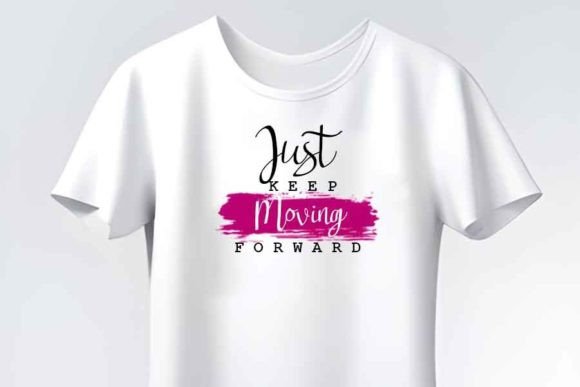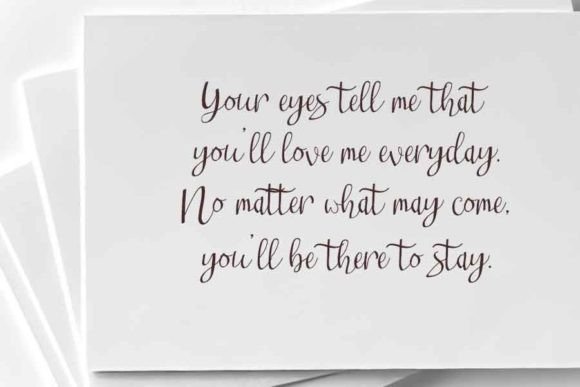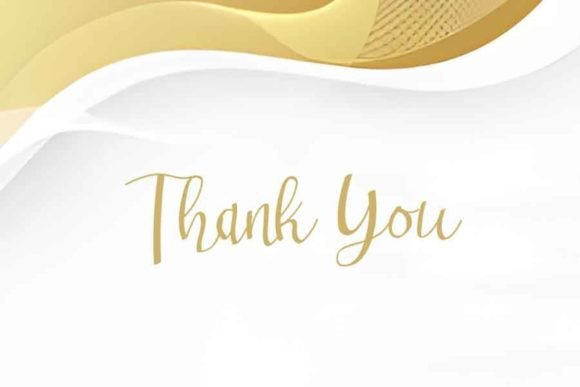
Introducing Alpenice Font: Elevate Your Designs with a Touch of Retro Elegance
Are you on the hunt for a font that adds a dash of sophistication and whimsy to your designs? Look no further than Alpenice, a stunning handwritten font that is sure to capture the hearts of designers and crafters alike. With its delicate strokes and retro flair, Alpenice is the perfect choice for creating eye-catching logos, branding materials, and quotes that demand attention.
The Beauty of Alpenice
Alpenice is more than just a font – it’s an experience. Its beautiful, hand-crafted letters are infused with a sense of nostalgia and charm, evoking memories of a bygone era. The font’s delicate lines and subtle curves give it a distinctly feminine touch, making it ideal for designs that require a touch of elegance and sophistication.
Features of Alpenice
• Retro Style: Alpenice boasts a distinctly retro aesthetic that will transport your designs back in time. Its vintage charm is perfect for creating designs that are both nostalgic and timeless.
• Handwritten with Love: Each letter in Alpenice has been carefully crafted by hand, giving the font a unique and personal touch that sets it apart from more generic fonts.
• Elegant and Refined: Alpenice’s delicate strokes and subtle curves make it the perfect choice for designs that require a touch of sophistication and refinement.
• Multipurpose: Whether you’re creating logos, branding materials, or quotes, Alpenice is the perfect font for any design project that requires a touch of elegance and whimsy.
Why Choose Alpenice?
So why choose Alpenice over other fonts? For starters, its unique retro style and delicate lines make it a standout in a sea of more generic fonts. Additionally, its handwritten nature gives it a personal touch that will make your designs feel more approachable and relatable. Whether you’re a designer, crafter, or simply someone who appreciates beautiful typography, Alpenice is sure to become your go-to font for all your design needs.
Using Alpenice in Your Designs
Alpenice is incredibly versatile and can be used in a variety of design applications, including:
• Logo Design: Create eye-catching logos that demand attention with Alpenice’s unique retro style and delicate lines.
• Branding: Use Alpenice to create branding materials that are both elegant and refined, such as business cards, letterheads, and packaging.
• Quotes and Typography: Add a touch of whimsy and sophistication to your quotes and typography with Alpenice’s beautiful, handwritten letters.
Tips and Tricks for Getting the Most Out of Alpenice
To get the most out of Alpenice, here are a few tips and tricks to keep in mind:
• Experiment with Font Sizes: Alpenice looks great in a variety of font sizes, so don’t be afraid to experiment to find the perfect size for your design.
• Pair with Other Fonts: Alpenice pairs well with a variety of other fonts, so try pairing it with some of your favorite fonts to create a unique and interesting design.
• Use it Sparingly: Because Alpenice is such a beautiful font, it’s best to use it sparingly to avoid overwhelming your design.
In conclusion, Alpenice is a beautiful and delicate handwritten font that is sure to elevate your designs with its retro style and elegant lines. Whether you’re a designer, crafter, or simply someone who appreciates beautiful typography, Alpenice is the perfect choice for any design project that requires a touch of sophistication and whimsy. So why wait? Give Alpenice a try today and see the difference it can make in your designs!